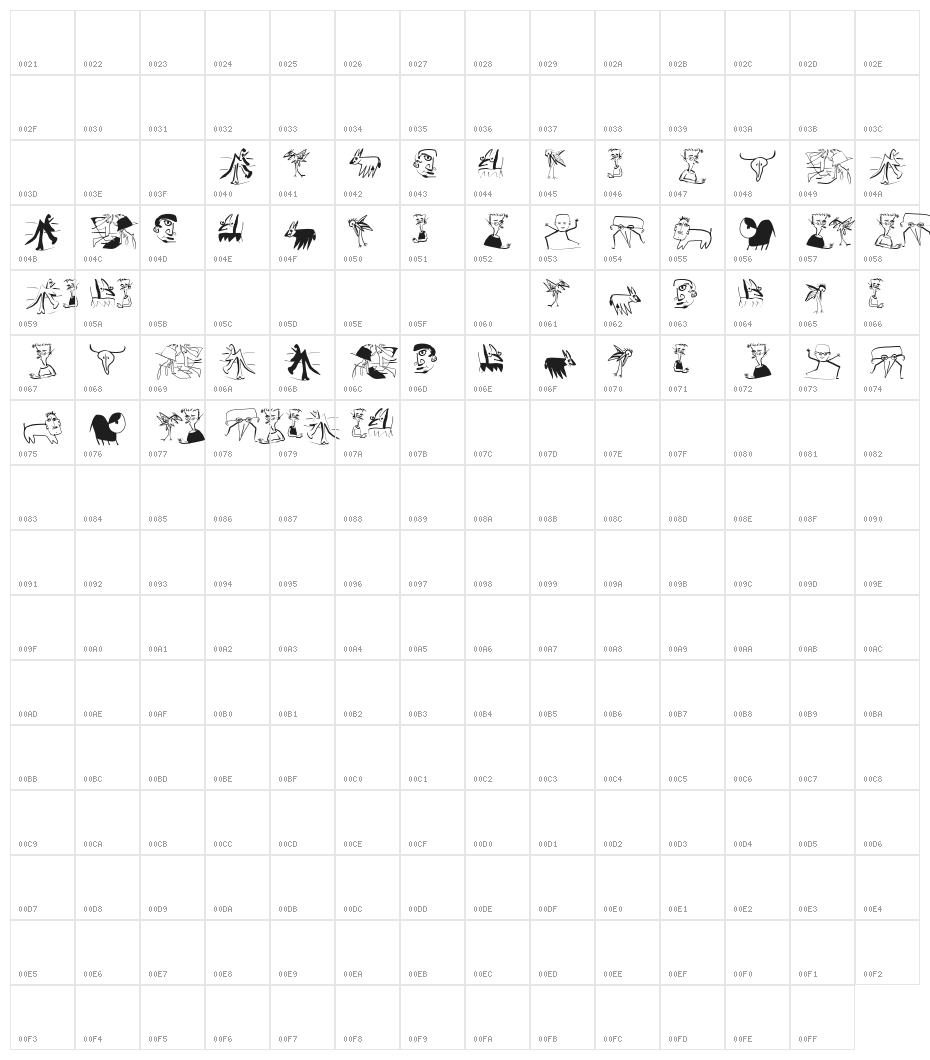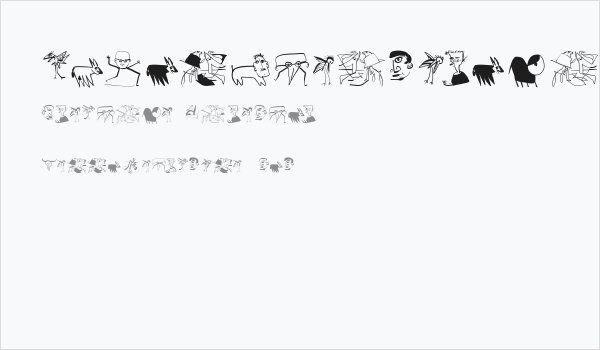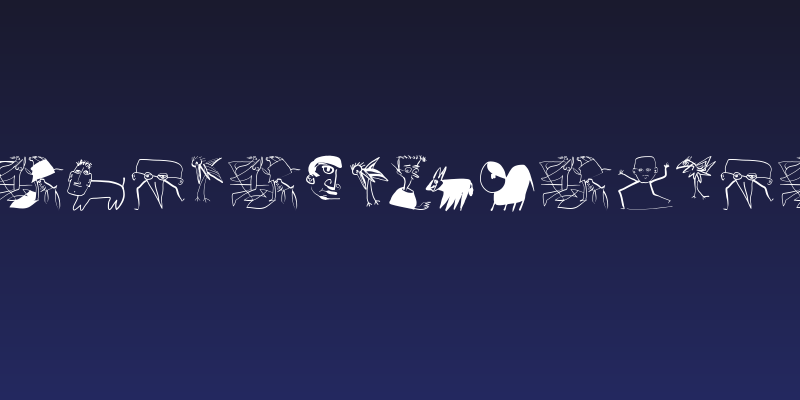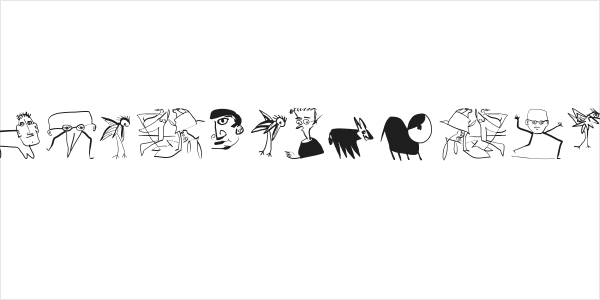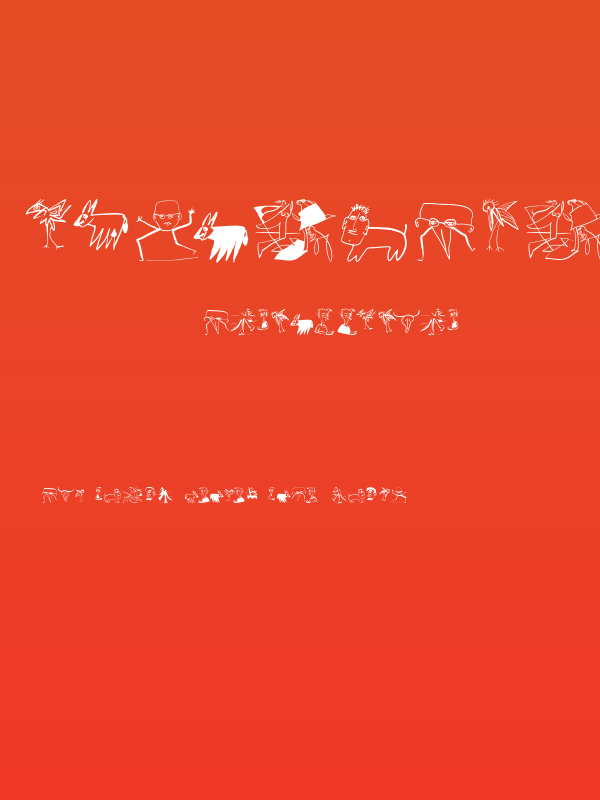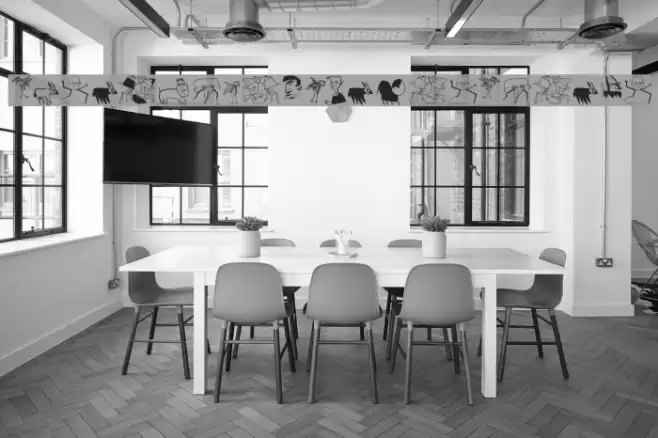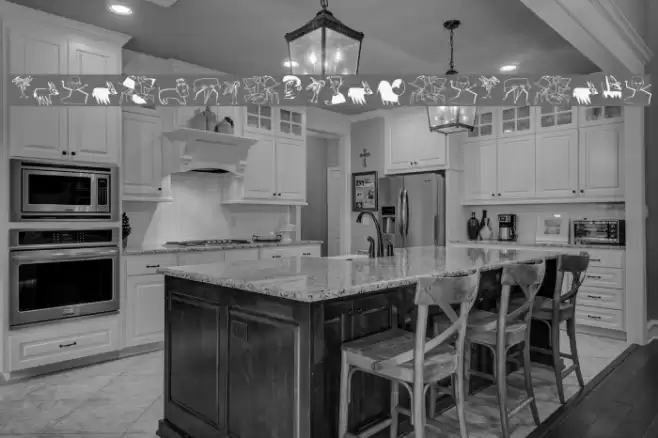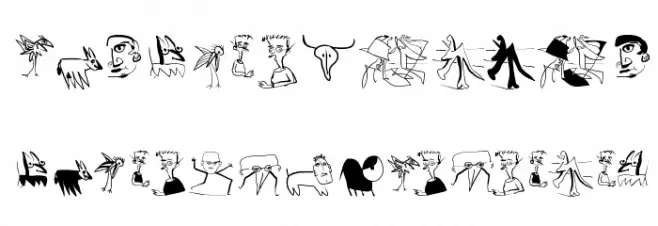
AbsoluteImprovisations Font
AbsoluteImprovisations Description
This font is a highly creative and abstract collection of characters, each resembling a unique doodle or sketch. The characters are not traditional letters but rather artistic representations that evoke a sense of spontaneity and improvisation. Each symbol is distinct, featuring elements like abstract faces, animals, and geometric shapes. The style is reminiscent of modern art, with a playful and unconventional approach. The strokes vary in thickness, adding to the dynamic and lively appearance of the font. This font is not suitable for traditional text but serves as a decorative element for artistic projects.
| Use Case | Logos, Artistic designs, Decorative elements |
| Proposed Projects | Ideal for artistic projects, creative designs, and decorative purposes where a unique and unconventional style is desired. |